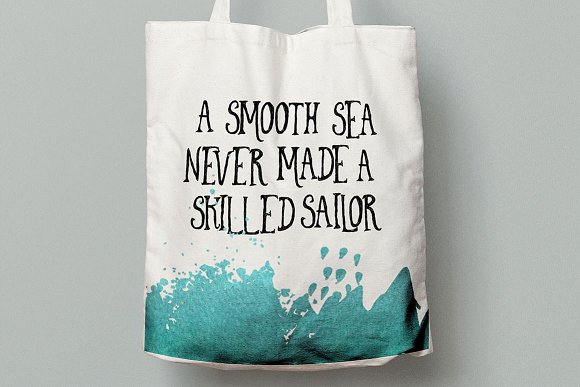
Introduction to Lovers Avenue Font
As designers, we’ve all been there – staring at a blank canvas, waiting for that spark of inspiration to strike. It’s in these moments that the right design resource can make all the difference. For those who are always on the lookout for a unique and captivating font, we’re excited to share the beauty of the Lovers Avenue Font.
Created by the talented team at Creativeqube, this stunning handcrafted font is a true gem for designers. Its high quality and elegant design make it perfect for a wide range of creative projects, from wedding invitations to branding materials. One of the standout features of the Lovers Avenue Font is its transparent background, allowing for seamless integration with any design element.
Key Features of Lovers Avenue Font
- Features a transparent background, allowing for effortless layering and customization in graphic design applications.
- Includes a range of glyphs and characters, making it a versatile and comprehensive font for various design needs.
- Designed with a focus on legibility and readability, ensuring that the font remains clear and easy to read across various resolutions and sizes.
Honest Review: Lovers Avenue Font
I recently stumbled upon the Lovers Avenue Font and was excited to give it a try. As a designer, I’m always on the lookout for high-quality design resources that can elevate my creative projects. This font definitely fits the bill.
- The font has a beautiful, elegant design that works well for romantic and whimsical projects.
- The transparent background makes it easy to combine with other design elements.
One of the things that really stood out to me was the level of detail in the font’s design. The curves and lines are all smooth and well-defined, making it a pleasure to work with.
- The font may not be suitable for all types of projects – it’s definitely geared towards more creative and romantic themes.
- There may be some limitations in terms of customization options, but this is a minor complaint.
Overall, I’m really impressed with the Lovers Avenue Font. It’s a great addition to any designer’s toolkit and I would definitely recommend it to others.
Tips for Getting the Most Out of Lovers Avenue Font
With its high quality and transparent background, Lovers Avenue Font is perfect for any creative project. To get the most out of it, use it on a high-resolution image or design, and experiment with different font sizes and colors to achieve the desired effect.
Lovers Avenue Font is commonly used for romantic and creative projects, such as wedding invitations, birthday cards, and social media graphics. Its elegant and sophisticated design makes it a great choice for any project that requires a high-quality font with a transparent background.